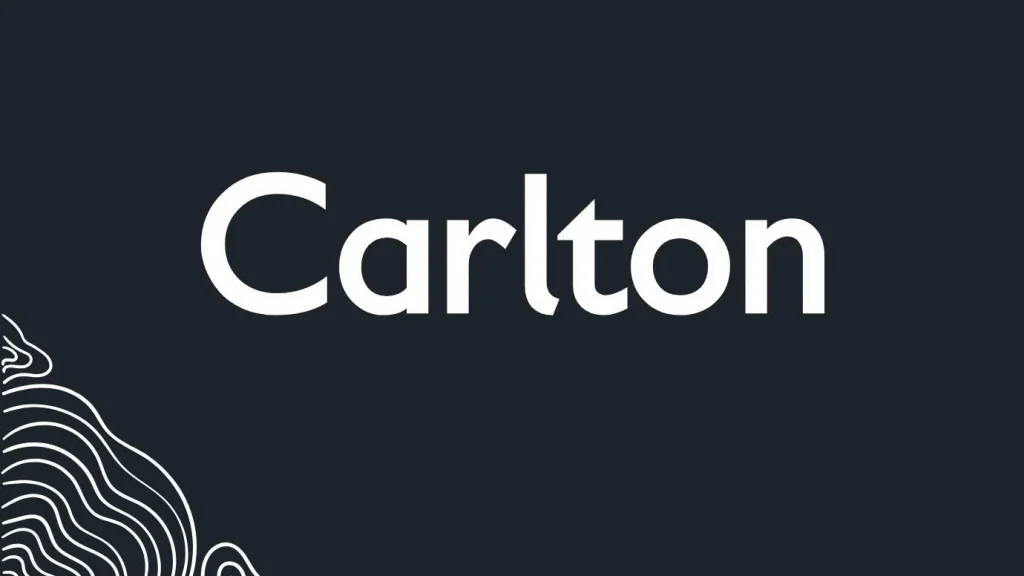
The flexible typeface has neat and clean characters that may be a good choice for any content design. For any project design that needs to look good, pair it with the europa grotesk font.
Weights and Styles of Carlton Logo Font
Many designers have used this typeface family to create amazing designs. It is used by many international airlines, colleges, and a global organization that has also used this typeface as their official logo, to name a few important locations where it may be found. It has received a lot of appreciation all across the world.
This typeface is also excellent for documentation and may be used for various assignments, and website headers. It will be ideal for logos, art books, newspaper and magazine headings, postcards, brands, printing on products, and much more.
Several private projects can be done while using this stunning font, it is the best option for creating website designs, channel designs, and thumbnails. It is highly recommended for logo designing and for any kind of brand name and blog design.
| Name | Carlton Logo Font |
| Designer | Pixel Sagas |
| Style | Sans-serif |
What kind of a Carlton Logo Font?
This typeface belongs to the fancy style category. The flexible typeface has neat and clean characters.
Who is the Carlton Logo Font Font’s designer?
Pixel Sagas is the designer of this amazing font category.